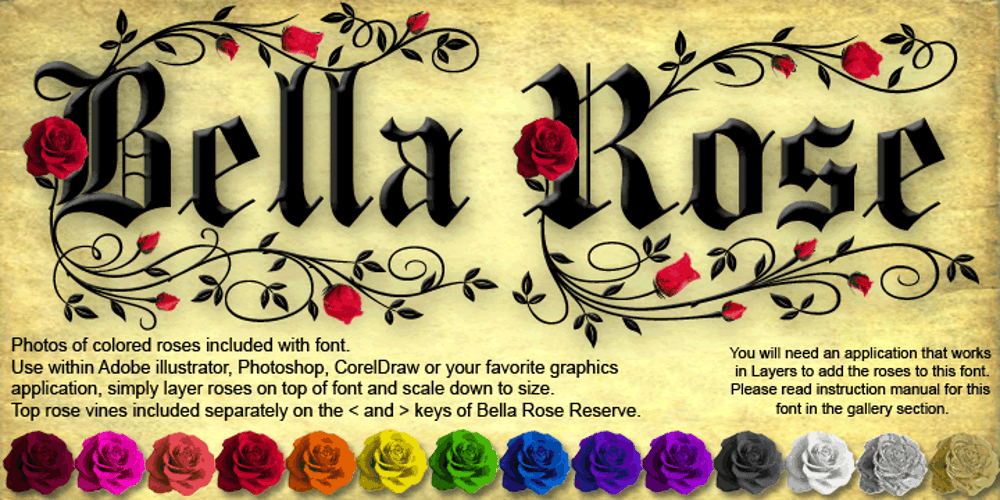
Bella Rose Font Family was designed by Michael Hagemann and published by FontMesa. Bella Rose contains 1 styles and family package options. Bella Rose is a combination of photographic images and fonts layered together to create a final image that’s sure to get the individual viewer’s attention. The vivid color roses, included with the font, adds more beauty, depth and impact to what ever project you decide to use it on. Bella Rose may be used with or with out the rose photos, the basic font comes with an illustrated rose incorporated into the letters. To add the rose photos to the letters you will need an application that works in layers such as Adobe Illustrator, Photoshop or CorelDraw. Word processors do not work in layers, however you may create and save an image of rose letters in Photoshop then place the image file into your Word document. The rose photos are supplied as PNG files with the background set as transparent, the photos are large in size and set to 300dpi. You will need to scale down the roses to fit the size of your project, rotating some of the roses will also be necessary for alignment on the rose vines. A set of alternate lowercase letters, additional parts and a rose border are in the Bella Rose Alternates font, please refer to the instruction manual showing you which keys the alternate characters are on. The OpenType version has 86 combined letter pairs set to auto replace when you type in an application that recognizes OpenType features such as Adobe CS products. The change to these letter pairs are subtle, a few are ligatures while the rest only have a small pen stroke removed for better appearance when typed together, for example the double l in the word Bella you’ll notice the pen stroke is removed from the lower left of the second l. Combining photos and fonts isn‚t a new idea, adding the roses to the letters and placing them into a Photofont plug-in was a possibility, however keeping the roses and font separate allows you to apply many different textures, colors or special effects to the letters while the roses remain unchanged.